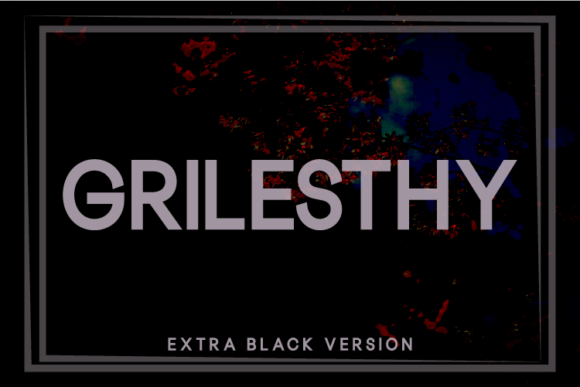
Step into a world of typographic elegance with Grilesthy Extra Black, a sans serif font that exudes charm and personality. Its friendly demeanor invites you to craft captivating headlines and engaging text blocks that resonate with your audience. Immerse yourself in the limitless possibilities of this modern and casual font, designed to elevate your designs with a touch of warmth and sophistication.
Unleash your creativity with Grilesthy Extra Black's extensive range of 10 weights, from the delicate Thin to the striking Extra Black. Each variant carries its own unique character, allowing you to tailor your designs to perfection. Whether you seek a subtle whisper or a bold statement, Grilesthy Extra Black adapts seamlessly to your vision.
Experience the versatility of Grilesthy Extra Black as it effortlessly enhances a wide spectrum of projects. Its crisp lines and playful curves bring life to logos, branding materials, social media graphics, and website designs. Transform ordinary text into captivating headlines that demand attention, or craft immersive blocks of text that draw readers into your narrative.
With its impeccable kerning and letter spacing, Grilesthy Extra Black ensures effortless readability, inviting your audience to delve into your content with ease. Its generous x-height creates a sense of spaciousness, making even dense blocks of text feel airy and inviting.
Elevate your designs to new heights with Grilesthy Extra Black, the font that captivates and inspires. Embrace its friendly charm and versatile nature to create designs that resonate with your audience, leaving a lasting impression that speaks volumes. Don't settle for ordinary fonts; embrace the extraordinary with Grilesthy Extra Black today and embark on a journey of typographic excellence.